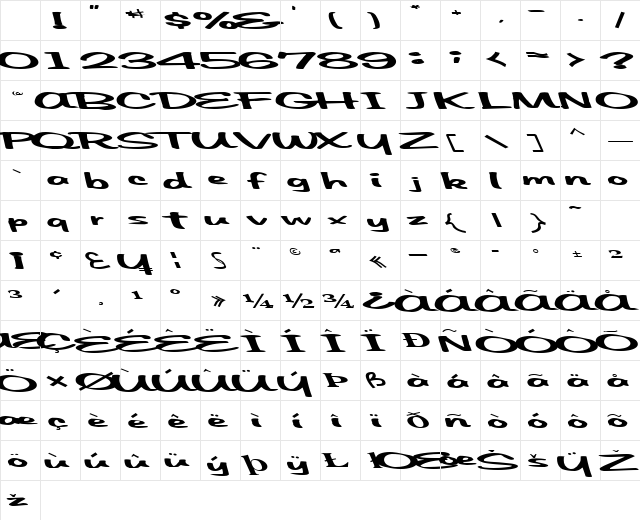
ReCallComplete Regular
Design Context for ReCallComplete
ReCallComplete is a composed and adaptable typeface that performs quietly and consistently across a wide range of design contexts.